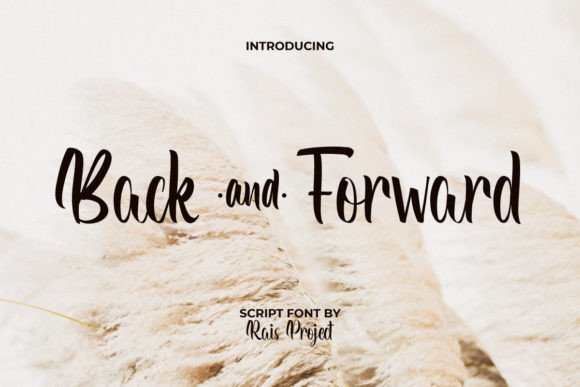
Welcome to the world of Back and Forward Font – a calligraphy script font that will leave you spellbound with its charm and timeless elegance. Step into a realm of creativity where your designs come alive with the grace and flow of this stunning font.
Back and Forward Font is not just a font; it's an artistic expression that transforms your words into works of art. Its stylistic curves and delicate flourishes add a touch of sophistication and warmth to every letter, making it the perfect choice for invitations, wedding stationery, branding, and any project that calls for a personal touch.
With Back and Forward Font, you'll find yourself immersed in a world of possibilities. Its versatility knows no bounds, allowing you to create designs that captivate and inspire. From ethereal wedding invitations that celebrate love to elegant branding that exudes professionalism, this font effortlessly adapts to your creative vision.
Let Back and Forward Font be your creative muse, guiding you towards designs that resonate with your audience. Its natural and grounded feel keeps your creations authentic while elevating them to new heights of beauty. Embrace the power of Back and Forward Font and watch your designs transform into masterpieces that leave a lasting impression.
Elevate your projects to the next level with Back and Forward Font. Let your imagination soar as you create designs that are not just visually appealing but also deeply meaningful. Experience the joy of seeing your words dance across the page, infused with the elegance and charm that only Back and Forward Font can provide.